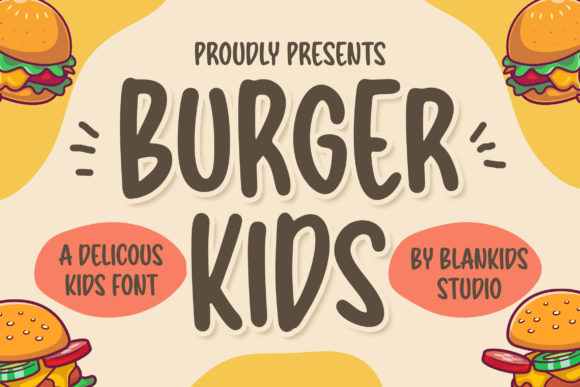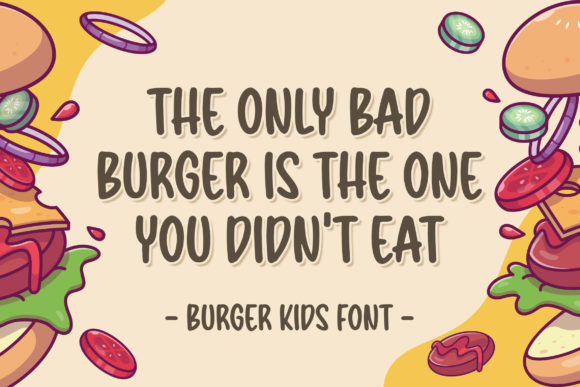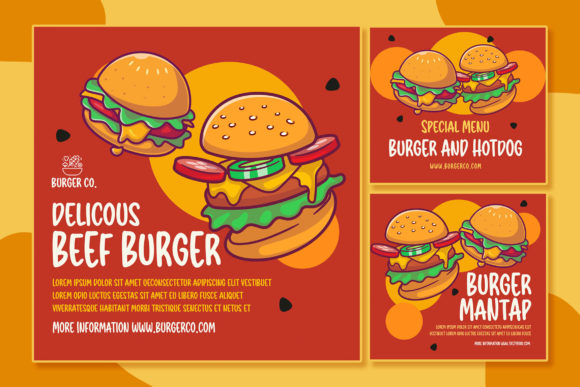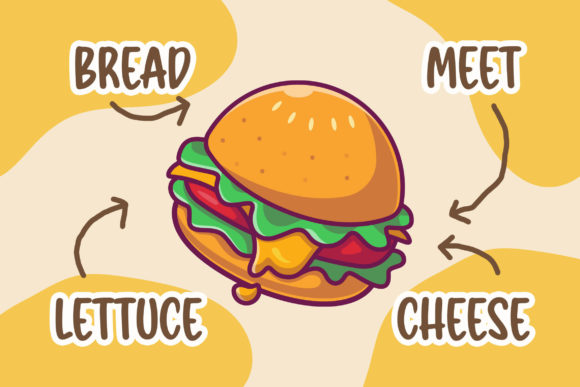
Burger Kids Font: A Playful Display Font for Fun Designs!
About the Burger Kids Font
Crafted with precision, the Burger Kids Font is ready to bring your ideas to life. Are you looking for a vintage playful font? Do you want to create something that stands out and inspires creativity, imagination, and endless fun? Wait no more, here’s the best choice!
Burger Kids a Delicious Display Font
Burger Kids is inspired by a bouncy calligraphy style. This font is perfect for a design that makes it more attractive and playful. Made with a very good level of aesthetics, this font is suitable for book covers, posters, packaging, merchandise, logotypes, and more.
Burger Kids’ bouncy calligraphy style lends itself best to headlines, short slogans, and playful branding elements. It excels in applications like posters, packaging for children’s products, or logos requiring a fun, retro feel. Avoid using it for body text or lengthy paragraphs; its playful nature can become overwhelming and difficult to read in extended use.
The font’s core personality is undeniably playful and friendly, with a touch of vintage charm. This makes it ideal for brands targeting a younger audience or those seeking to convey a sense of fun and nostalgia.
Consider pairing Burger Kids with a clean sans-serif like Open Sans for readability in supporting text or a more structured serif like Merriweather for a balanced contrast between playfulness and sophistication. For a bolder aesthetic, a geometric sans-serif could also create a visually interesting combination.
Burger Kids Font Example